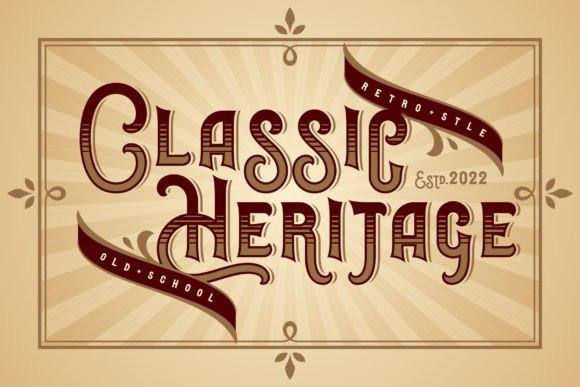
Fortune Font
Fortune Vintage is a distinct and retro-styled display font. It maintains its classy calligraphic influences while feeling contemporary and fresh. Fall in love with it and bring your projects to the highest levels!